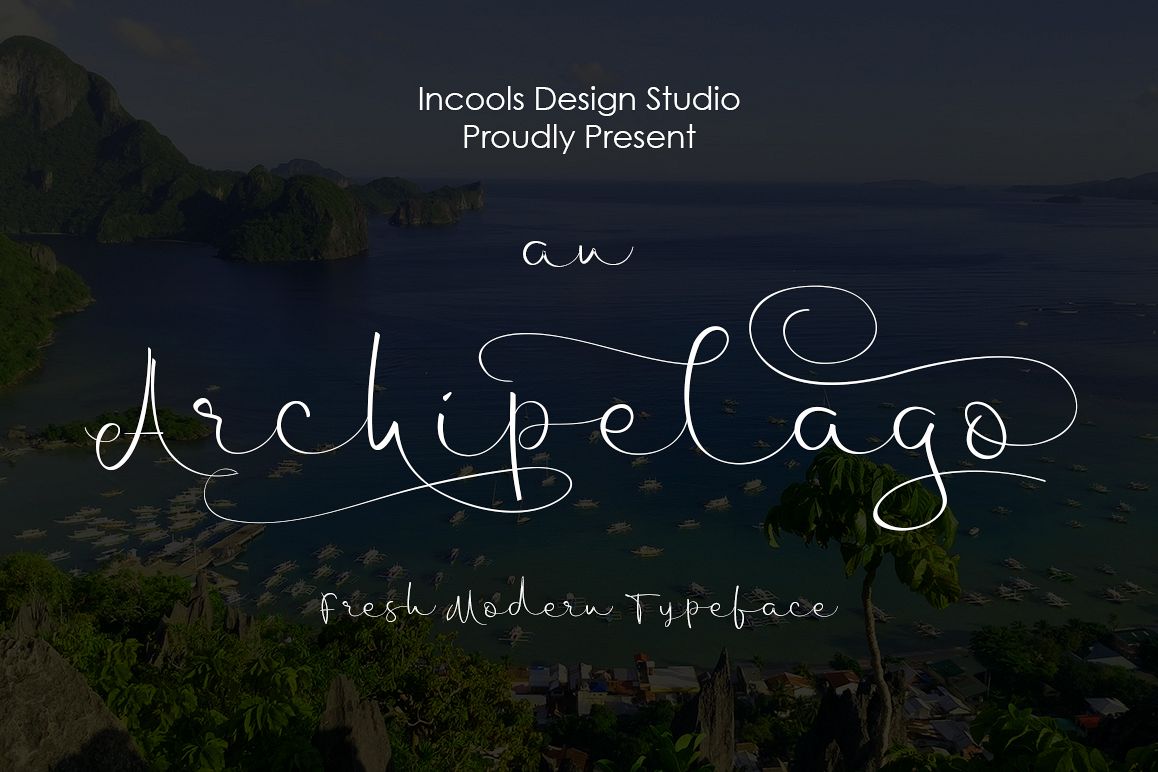
Archilepago
Archipelago-Regular
Archipelago is a really fresh from the oven modern typeface. its made while traveling across islands. Many things inspiring this typeface. Archipelago really suit for your daily design needs, for Lettering Logo, T-shirt, Banner, Letter, Wedding Invitation, Birthday Invitation, and any other kind of design.